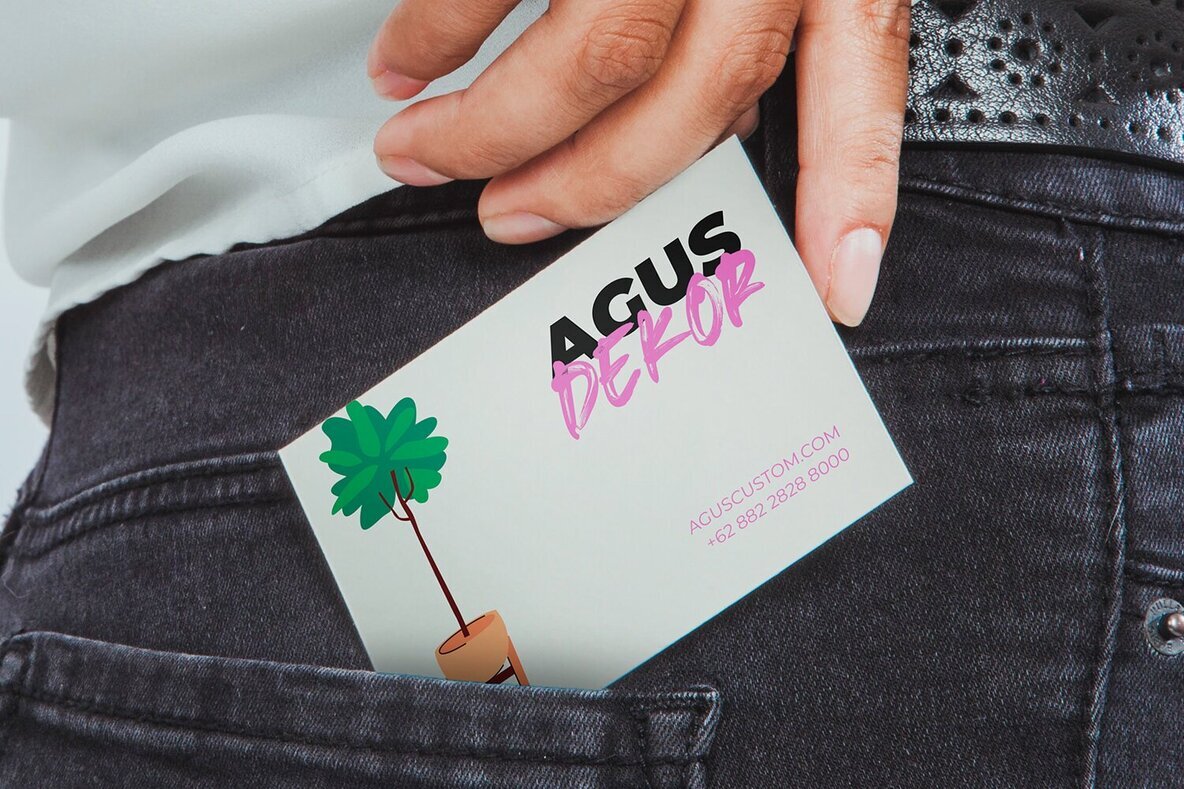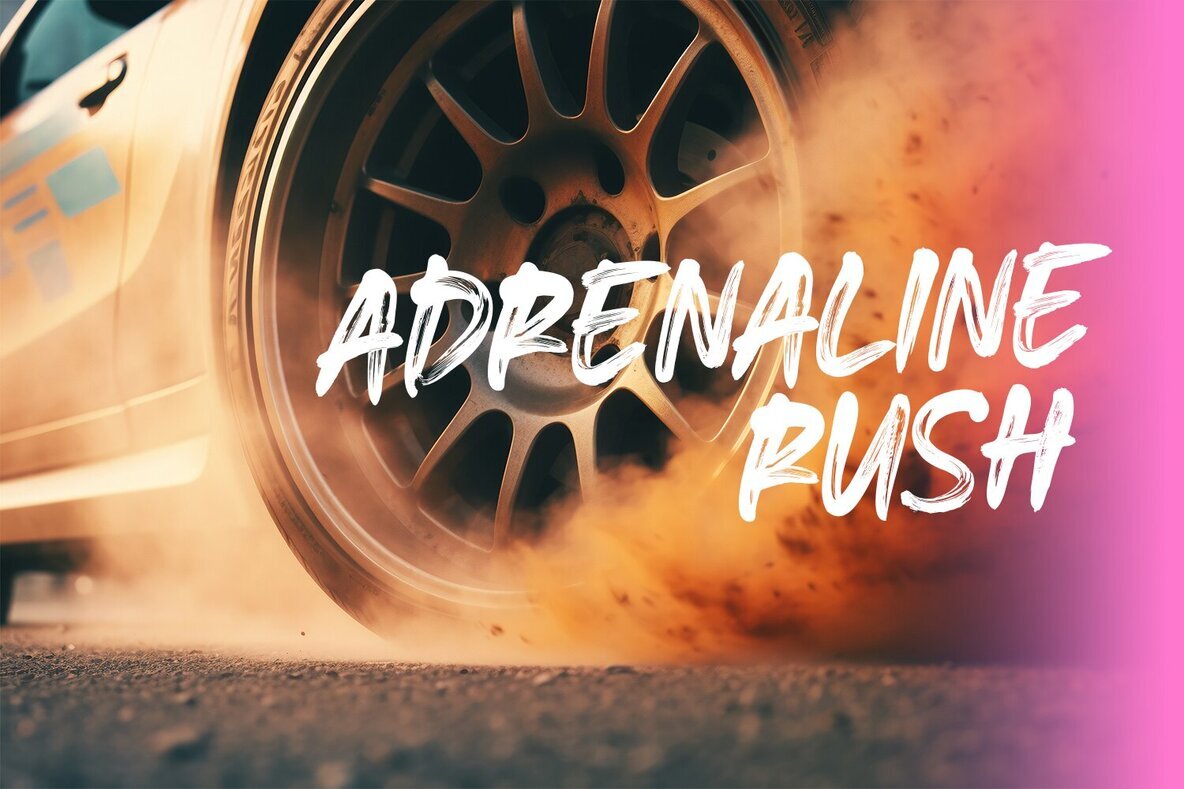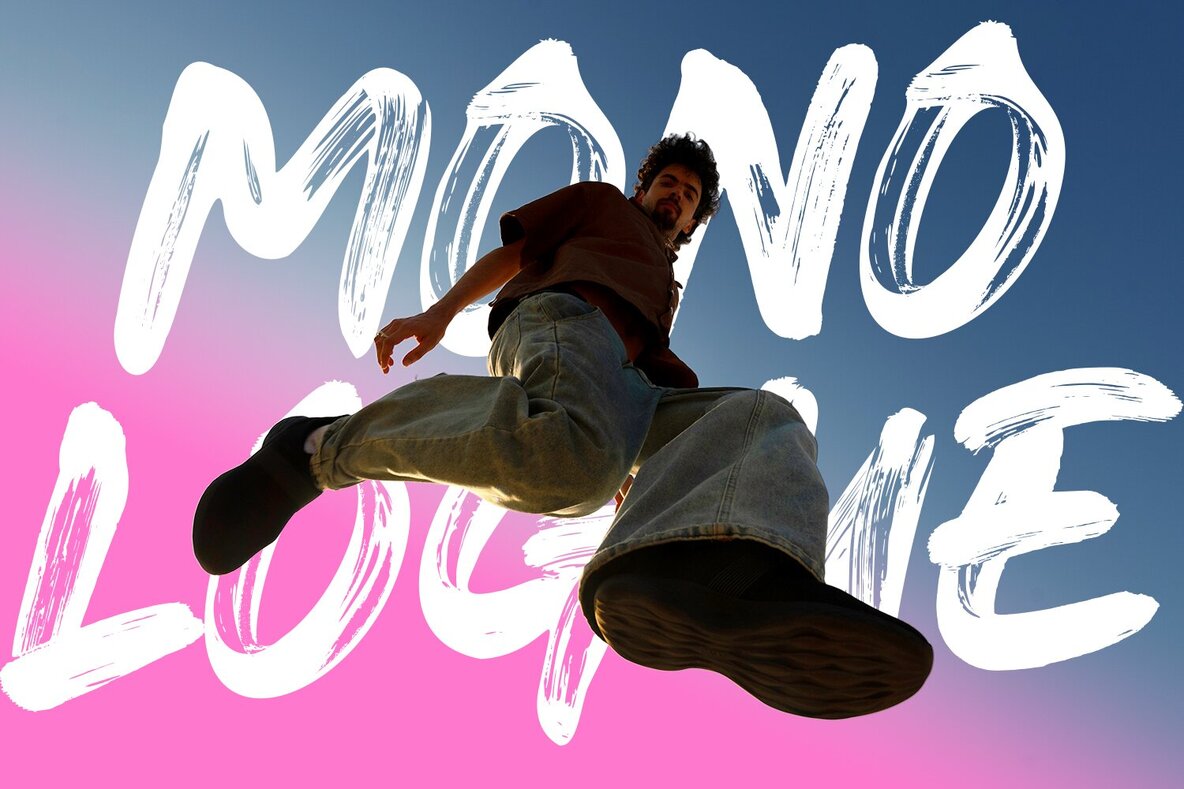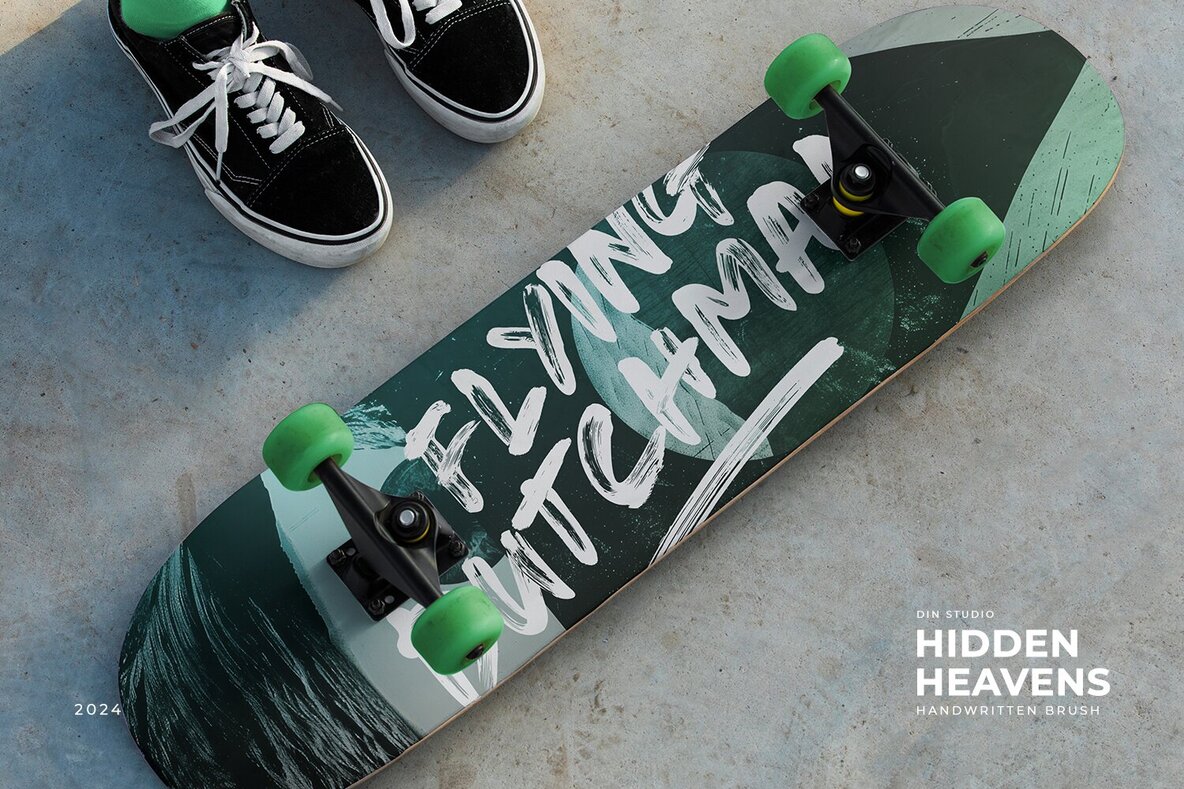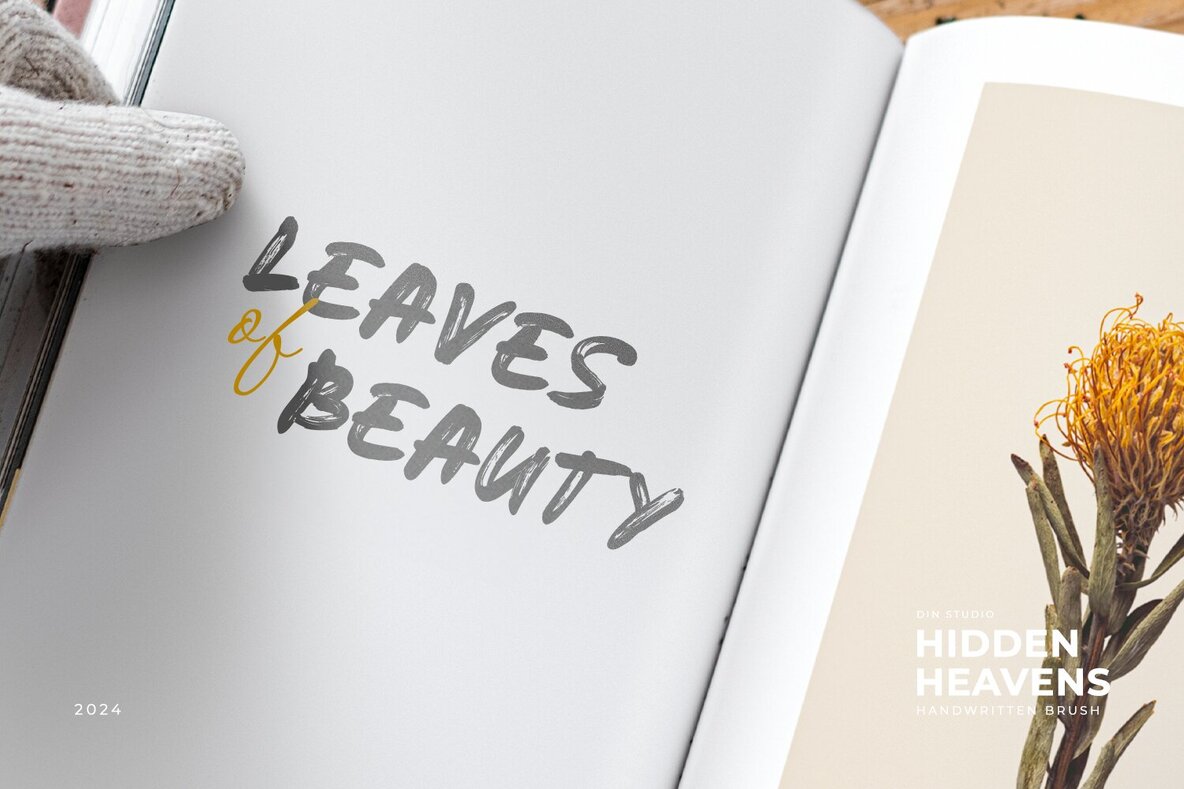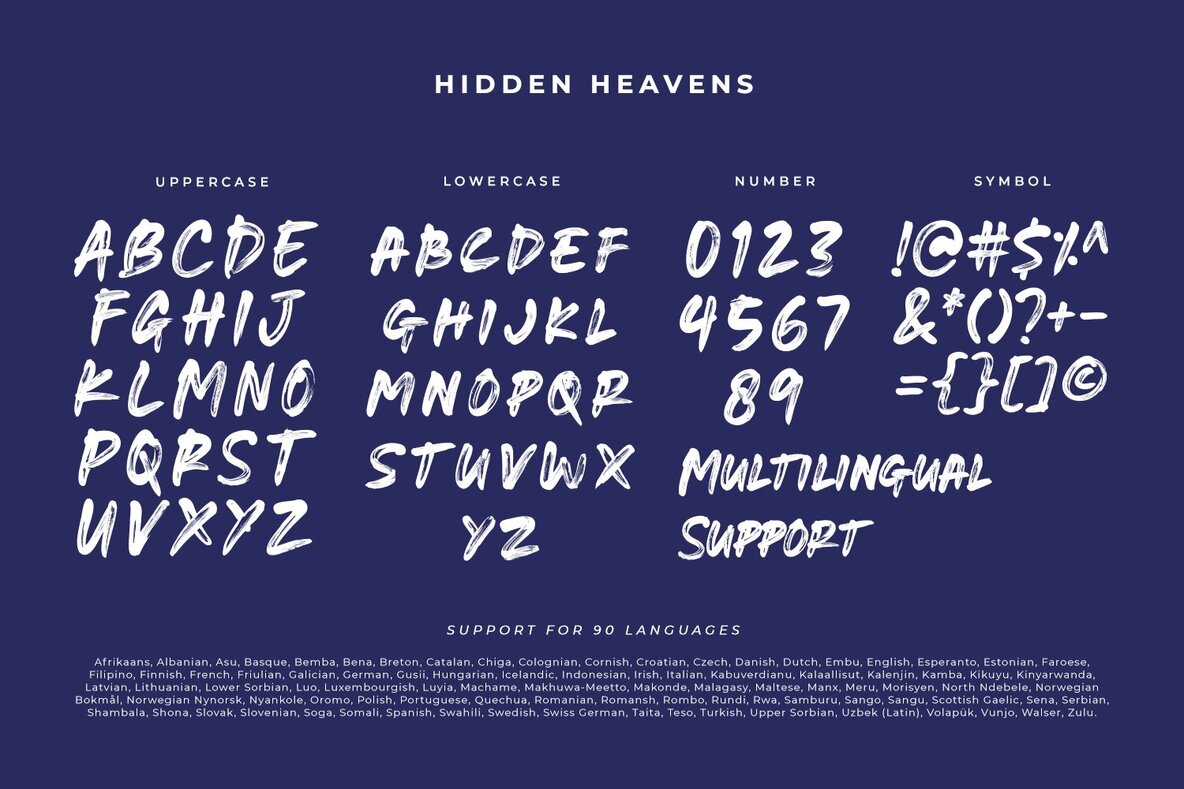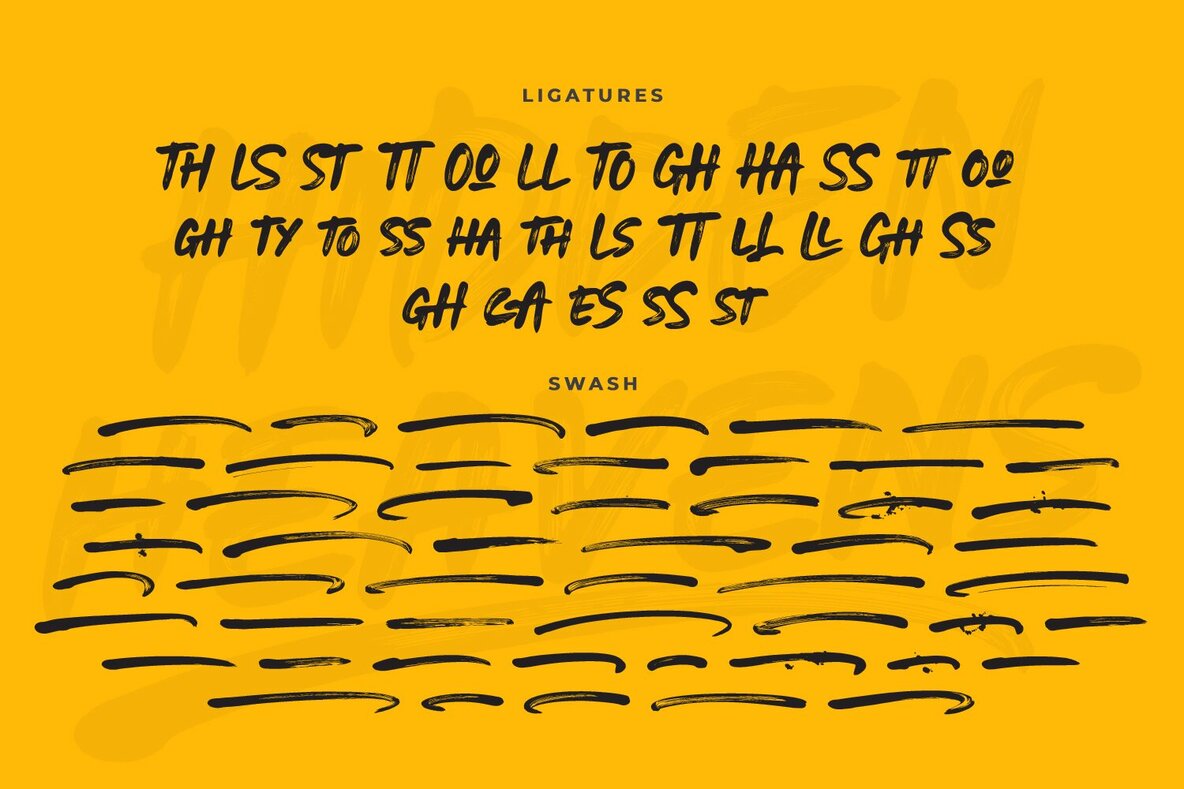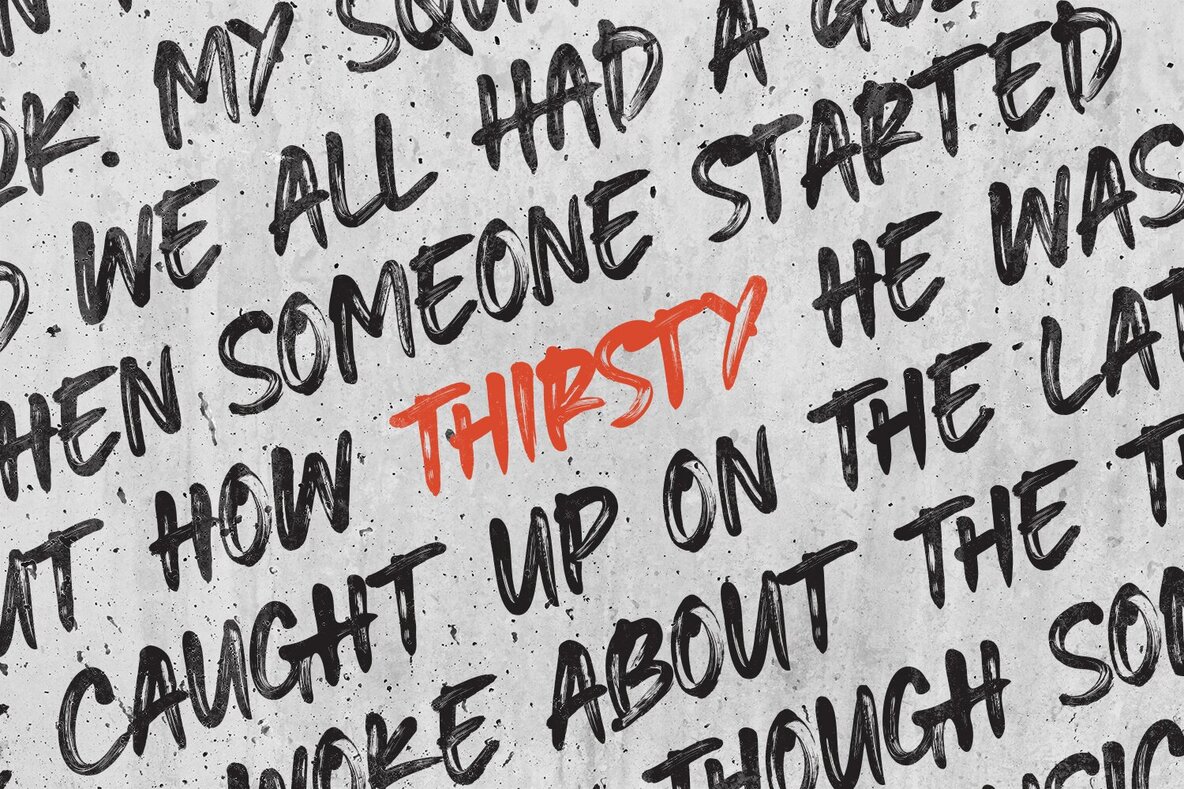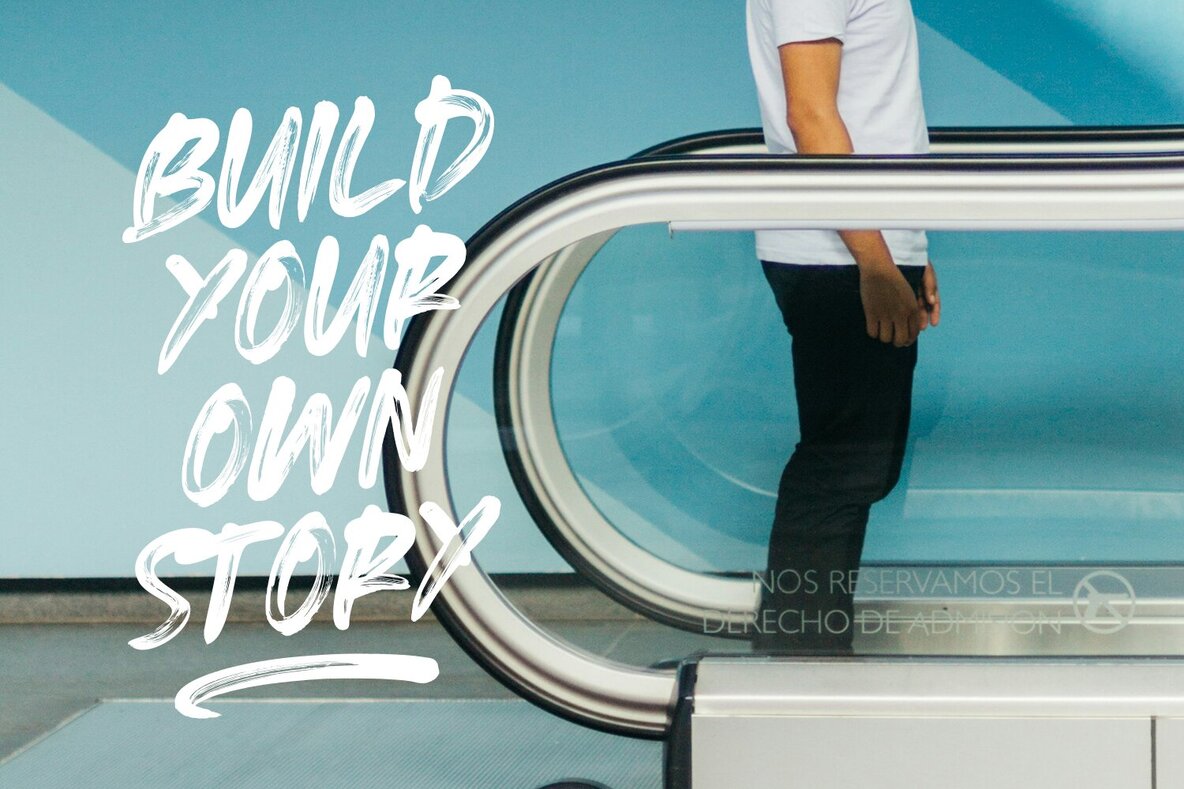
Hidden Heaven Font
Hidden Heaven is an uppercase brush font that exudes a warm and welcoming vibe, making it an ideal choice for designs that need a handcrafted touch. The font's rounded shapes and consistent proportions create a sense of cohesion and balance in each letter. Its combination of soft curves and bold strokes introduces an inviting style to any project.
Hidden Heaven includes features such as ligatures, swashes, multilingual support, PUA encoding, and a full set of numerals and punctuation. This font is versatile for various applications, including logos, business cards, posters, branding materials, packaging, print media, and editorial layouts. Explore its potential by viewing the font preview and discover how it can enhance your design projects.